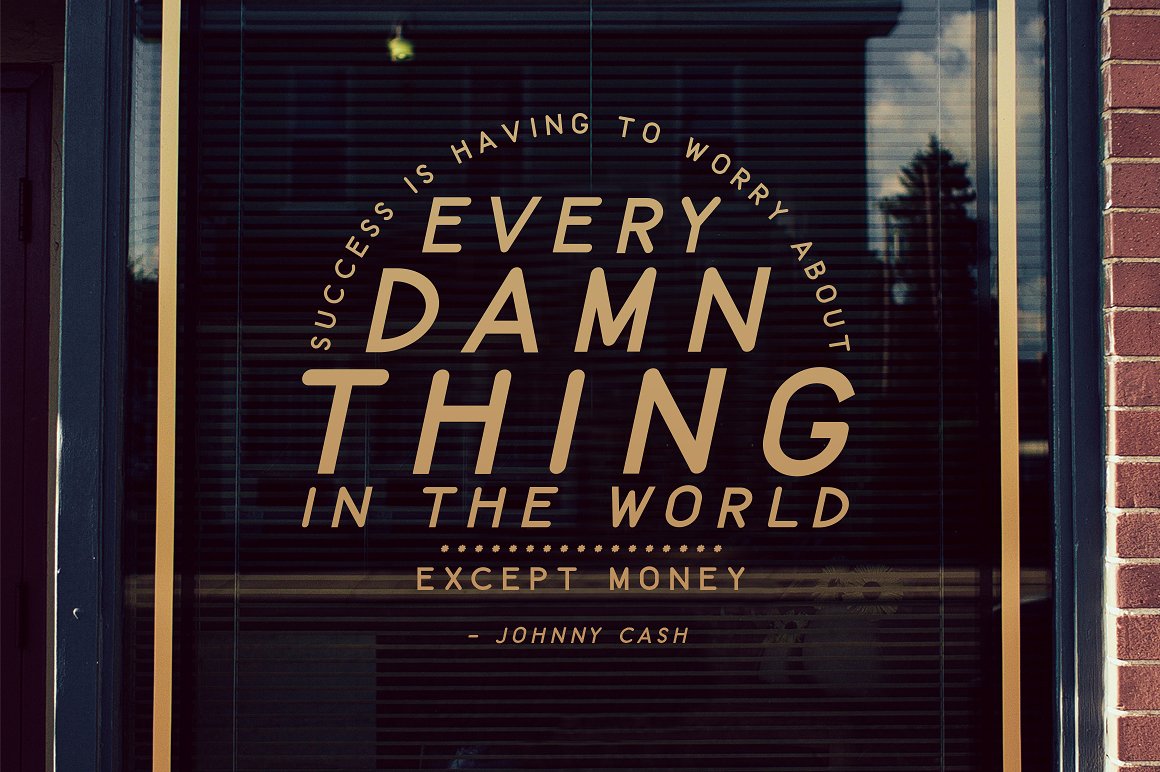
Kingsland | A Vintage Sans Serif
Kingsland Typeface designed by Jen Wagner Co, this is a premium font, are sold on creativemarket, but it was great, it is free today for download. Kingsland is a vintage sans serif all-caps typeface inspired by an old Johnny Cash record sitting in our living room (Cash was born in Kingsland, AR). It’s rapidly become one of my favorite fonts! Kingsland is an excellent option for typography projects, logos, signage, invitations, branding, websites, and more!